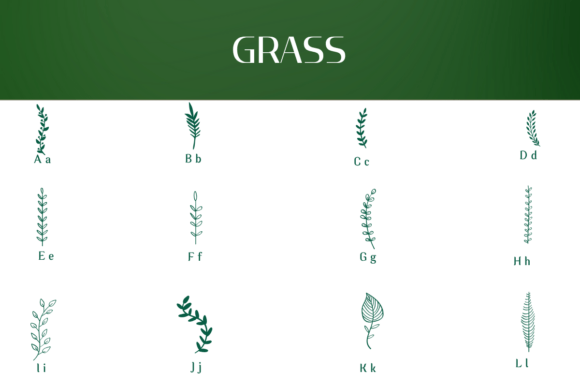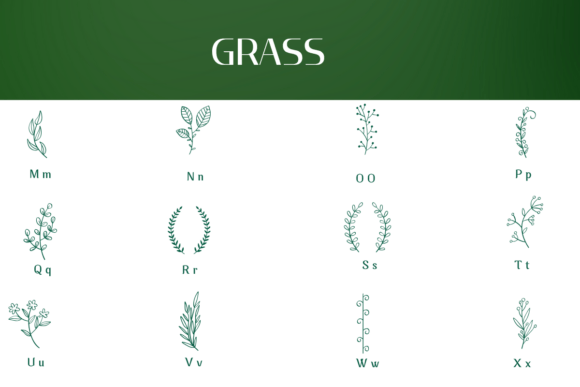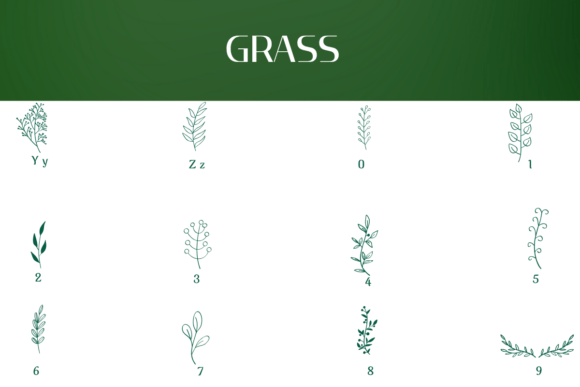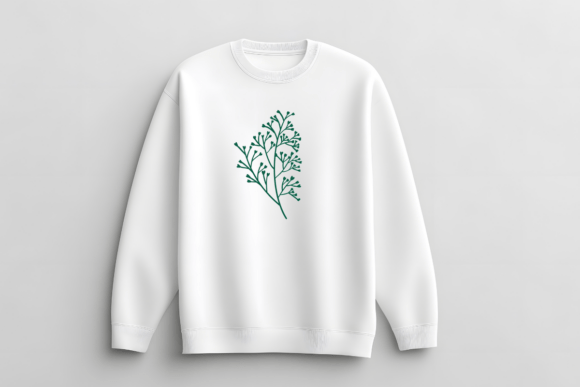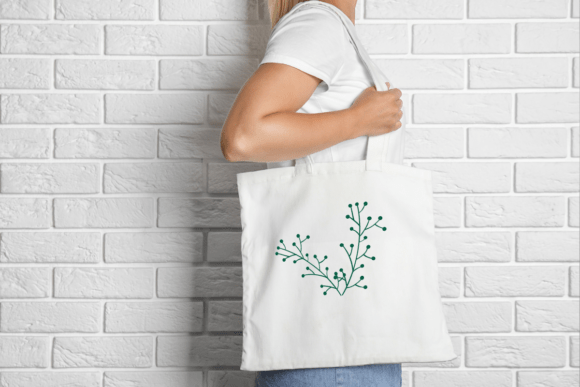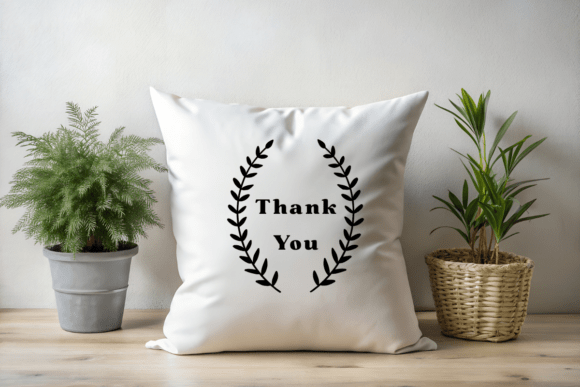
Introduction to Leaf Line Art Font
Leaf Line Art is a beautifully minimalist dingbat font filled with elegant, hand-drawn foliage — perfect for adding a touch of organic beauty to your designs.
With 52 unique botanical illustrations, this font brings together whimsical sprigs, graceful branches, wreaths, and leafy stems , all rendered in a clean line-art style Ideal for logos, wedding invitations, packaging, stationery, wall art, journals, and DIY projects , Leaf Line Art offers a quick and creative way to add natural elements to any layout.
Key Features of Leaf Line Art Font
Why Choose Leaf Line Art Font?